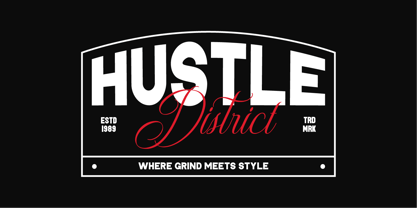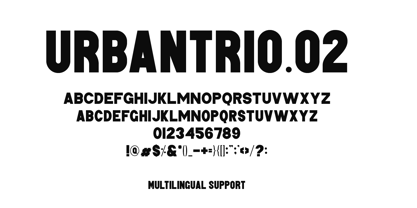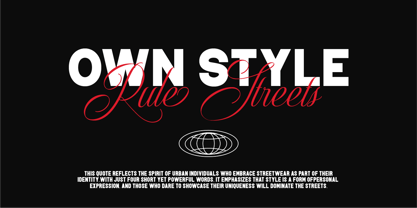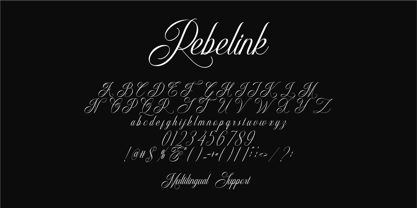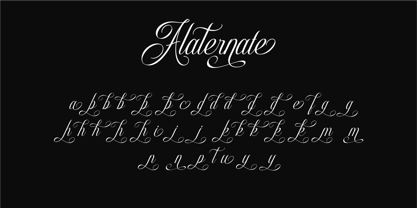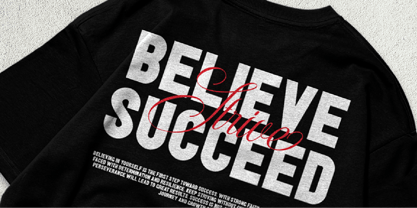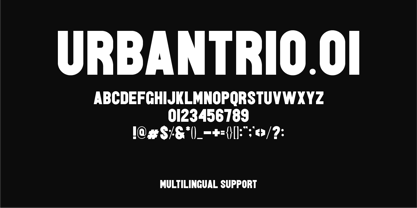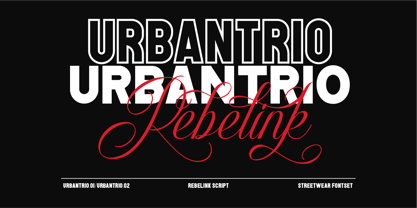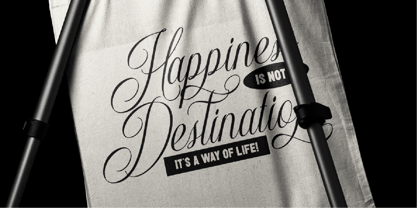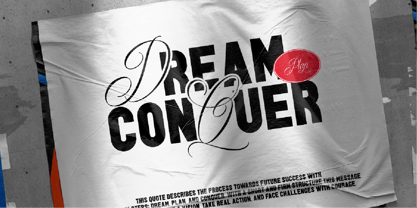
Urbantrio Rebelink
The Urbantrio Rebelink Font Family was designed by Ali Sifak Muftari and published by Liartgraphic. Urbantrio Rebelink contains 3 styles and family package options. More about this family
UrbanTrio Rebelink – A Versatile Trio of Modern & Rebel Typography
UrbanTrio Rebelink is a unique font package that combines modern, bold, and expressive styles in one set. Designed for versatility, this trio is perfect for branding, apparel, packaging, posters, and social media.
• UrbanTrio Sans Serif 01 & 02
Two modern sans-serif variations with a clean and strong look. UrbanTrio Sans Serif 01 features a solid and sturdy character, while UrbanTrio Sans Serif 02 offers a slightly rounded touch for a softer and friendlier feel.
• Rebelink (Script Calligraphy)
A dynamic script calligraphy font with energetic strokes, creating a rebellious yet elegant impression. Ideal for signature branding, quotes, or any design element that needs an artistic and bold touch.
UrbanTrio Rebelink is designed for flexibility and seamless font pairing, allowing for captivating and professional design combinations. This font also supports multilingual characters and includes alternates & ligatures to enhance creativity in usage.